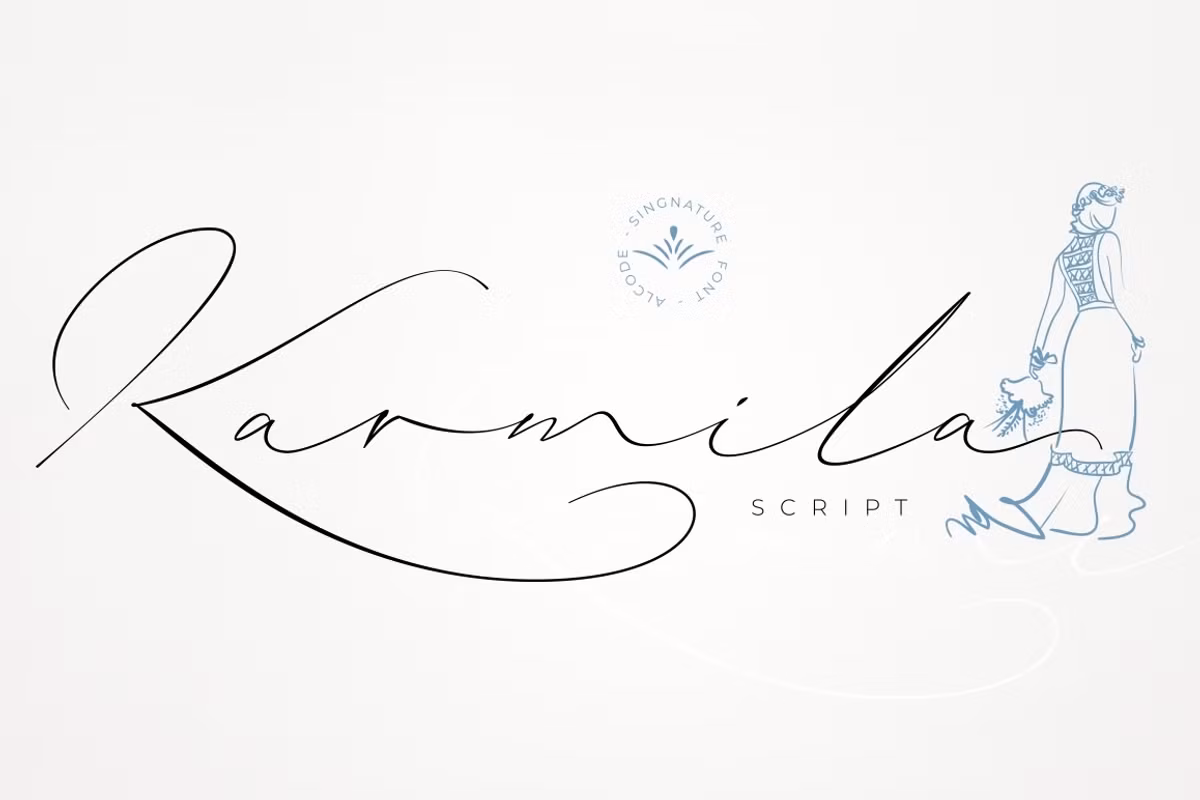
Karmila Font Free Download is a beautiful, elegant script typeface designed to bring a personal, handwritten touch to your designs. With its smooth, flowing letterforms and refined strokes, Karmila is perfect for wedding invitations, branding, logos, greeting cards, and any creative project that requires a sophisticated, yet casual script style.
This font includes uppercase and lowercase letters, numerals, punctuation, and stylistic alternates, allowing you to create natural and elegant typographic compositions. Its graceful curves and soft flow make it a perfect choice for both formal and informal designs.
Whether you're designing a chic logo, a romantic invitation, or stylish stationery, Karmila Font Free Download adds a refined, handwritten elegance to your work. Feel free to use it for personal or test projects, and be sure to obtain the appropriate license for any commercial use. Add beauty and flow to your typography with this stunning script font.